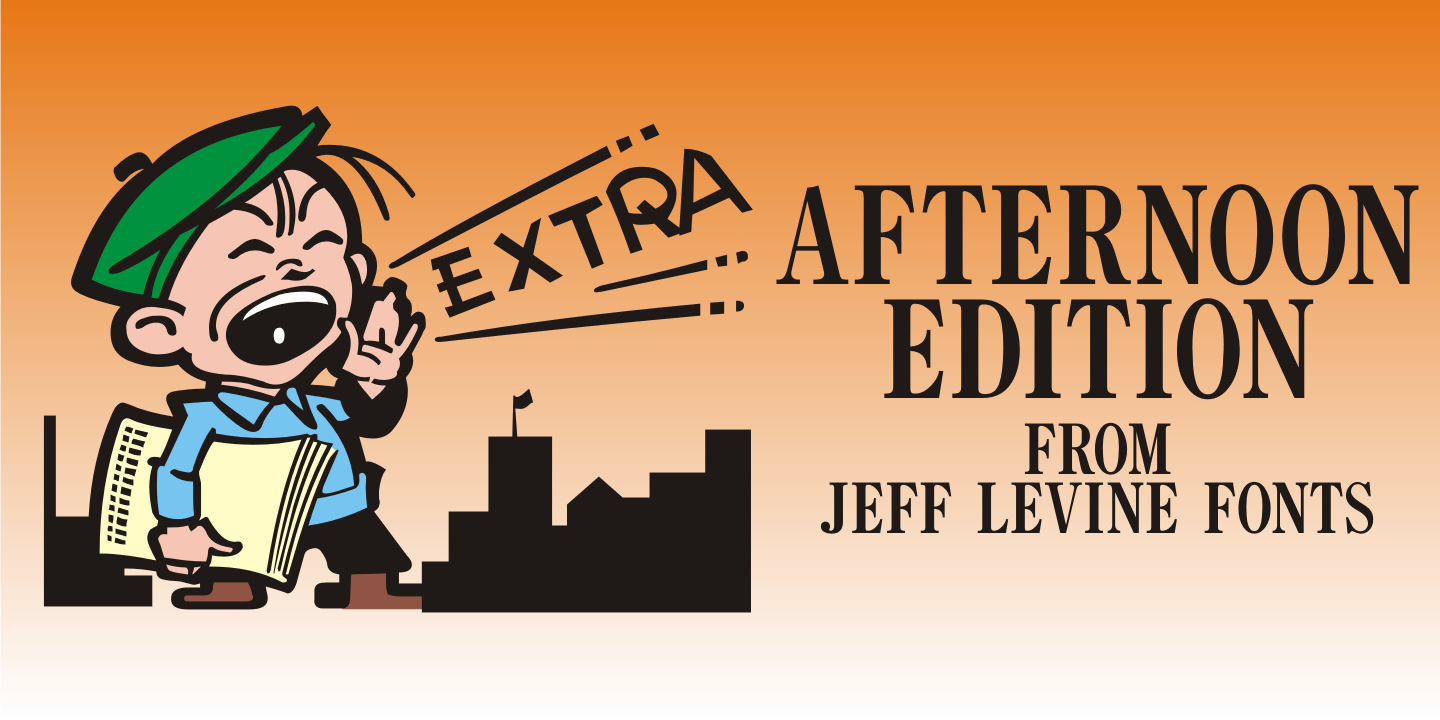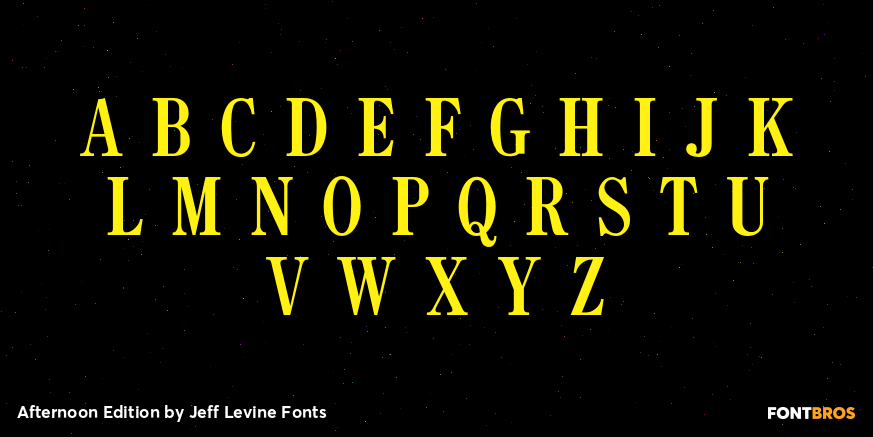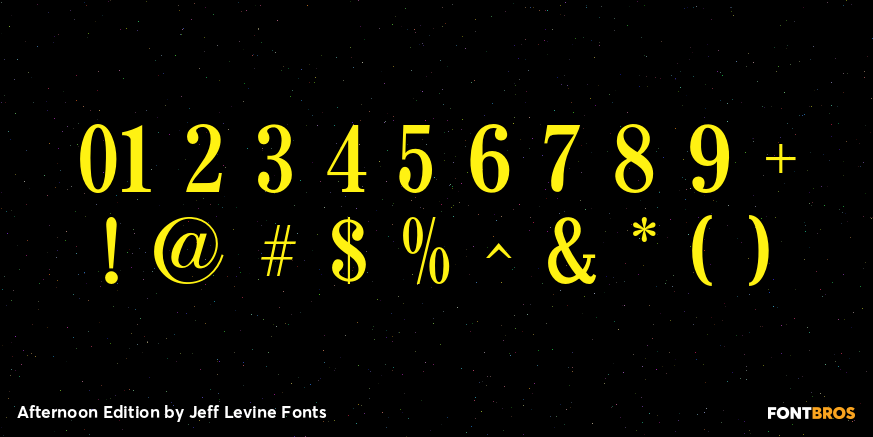
Afternoon Edition
Afternoon Edition JNL is another classic typeface (with Caslon influence) re-drawn from screen captures of vintage newspaper headlines.
The font joins Final Edition JNL, Evening Paper JNL and Morning Paper JNL as a mini-collection of type styles used to grab a reader's attention in the 1930s, 1940s and 1950s.